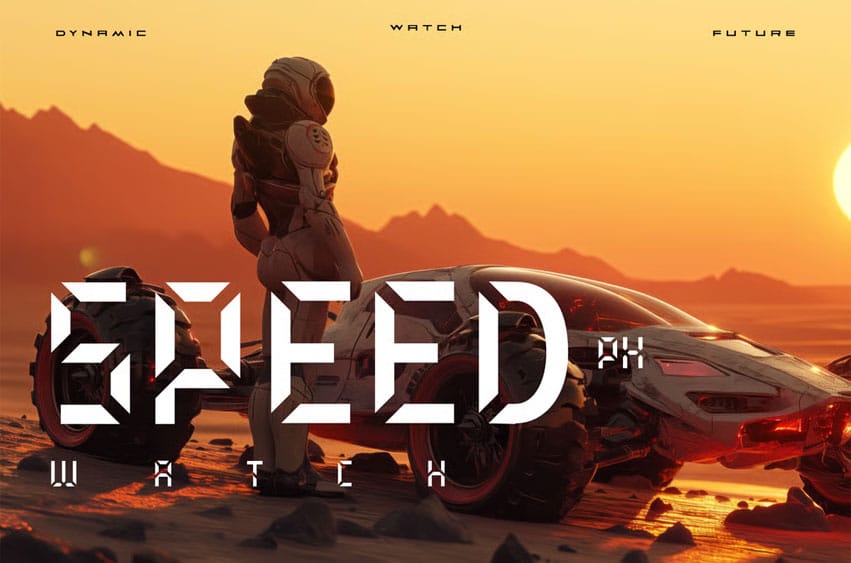
Speed Px Watch Font Time feels coded. Every second shaped by precision, not numbers. The design speaks digital, with thin geometry and silent rhythm.
Each curve runs like a circuit, each edge like a pulse from the next era. It’s not about reading hours — it’s about reading movement.